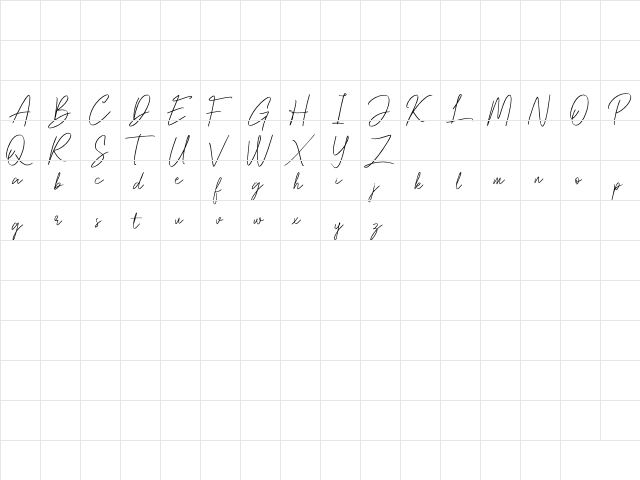
Pevanytta Signature Regular
| Designer | Jefri Dwi Alfatah |
Design Context for Pevanytta Signature Typeface
Pevanytta Signature is a composed and adaptable typeface that performs quietly and consistently across a wide range of design contexts.